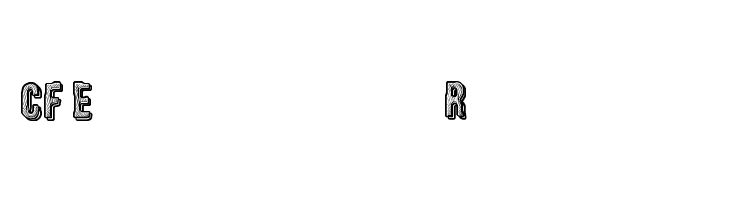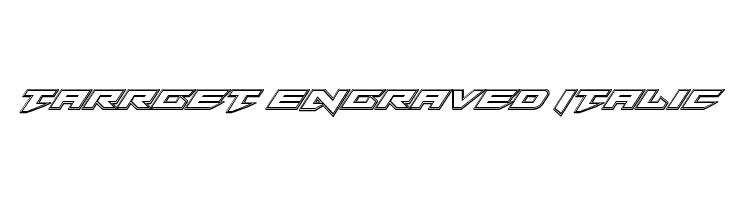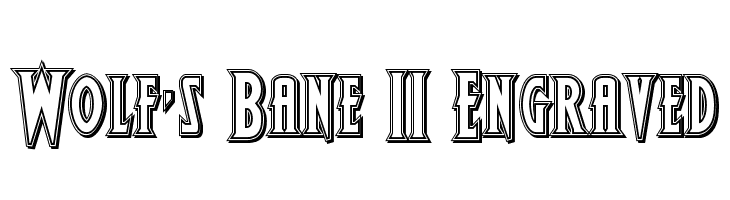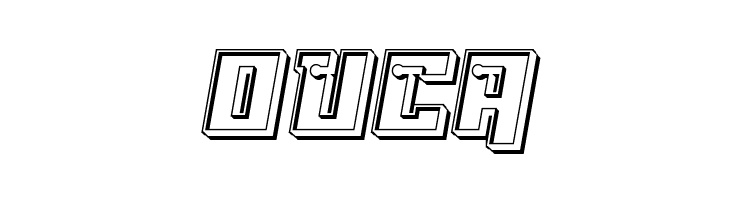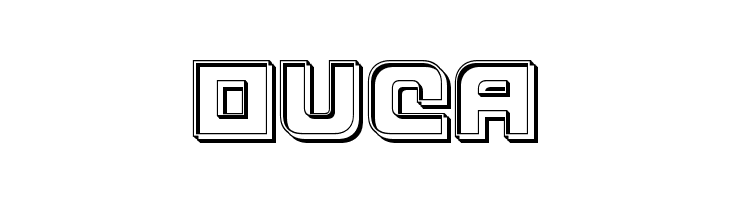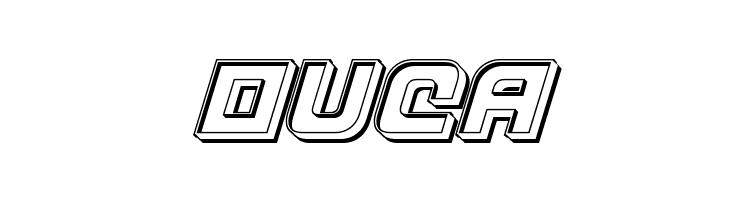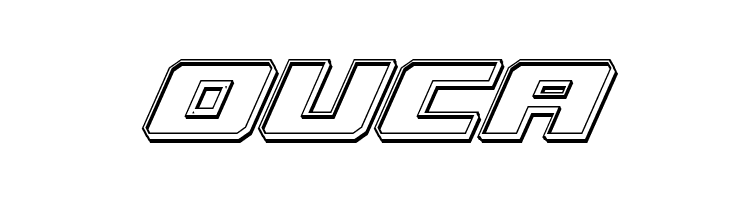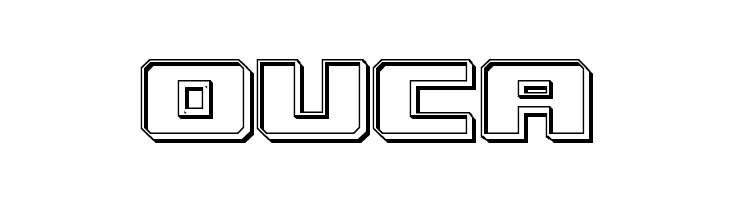
A bold, industrial font with a 3D engraved effect and geometric design.
A bold, angular, engraved italic font with a modern, three-dimensional look.
A bold, futuristic font with sharp angles and a three-dimensional engraved effect.
A bold, angular, engraved italic font with a futuristic style.
A bold, geometric font with an engraved, three-dimensional appearance.
A bold, italicized font with a three-dimensional engraved effect.
A bold, engraved, italic font with a military-inspired, decorative style.
A bold, engraved font with a vintage, three-dimensional style.
A bold, engraved italic font with a dynamic, three-dimensional style.
A bold, engraved font with a three-dimensional, textured appearance.